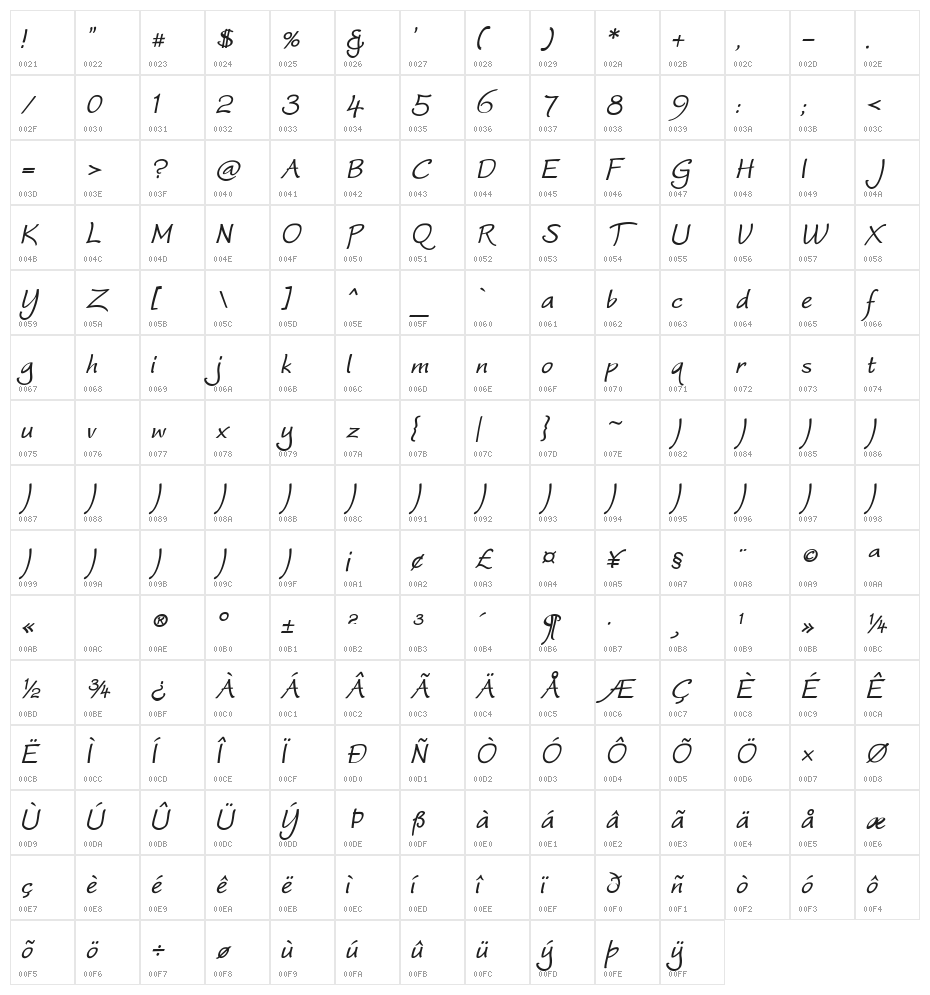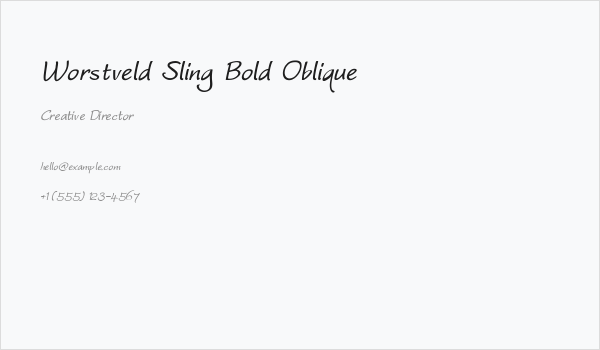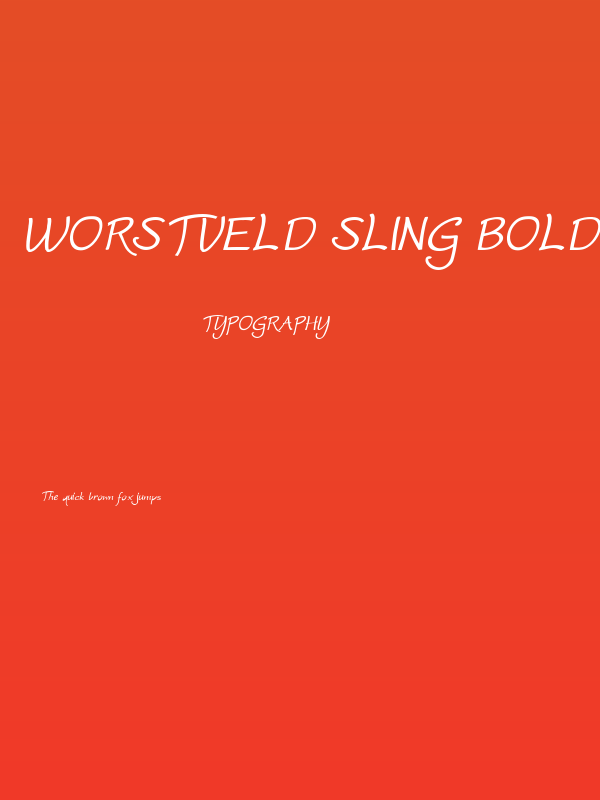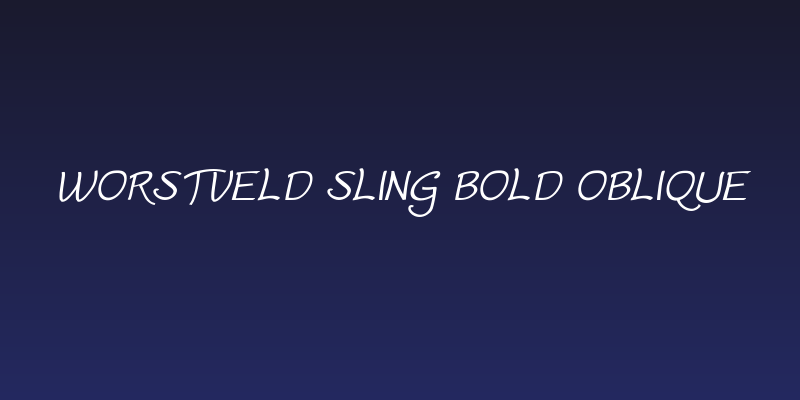
Worstveld Sling Bold Oblique Font
Worstveld Sling Bold Oblique Description
This font exhibits a dynamic and energetic style, characterized by its bold and oblique nature. The letters are slightly slanted, giving a sense of motion and fluidity. The strokes are thick and consistent, providing a strong visual impact. The uppercase and lowercase letters maintain a cohesive style, with rounded edges and smooth curves that enhance readability. The numbers and special characters follow the same design principles, ensuring uniformity across all glyphs. This font's playful yet assertive appearance makes it suitable for various creative applications.
| Proposed Projects | Ideal for branding, posters, and creative projects that require a bold and energetic typeface. |